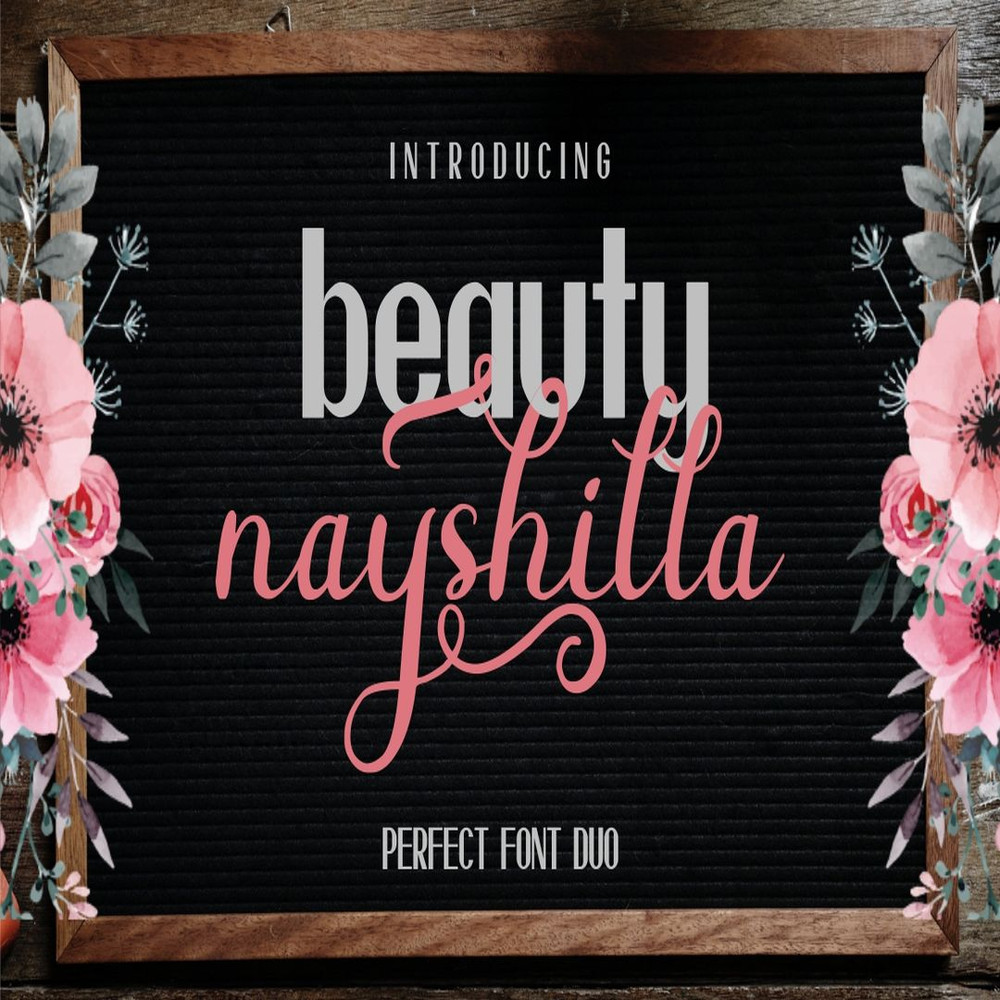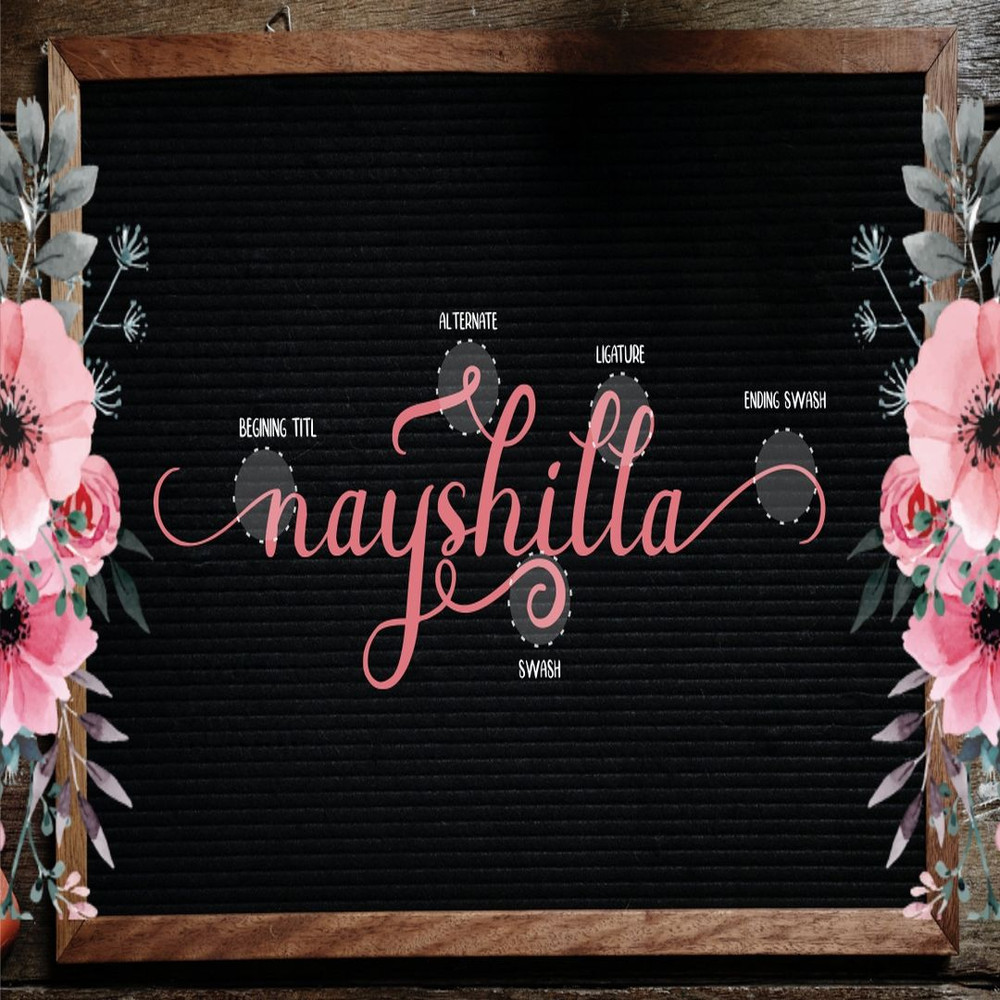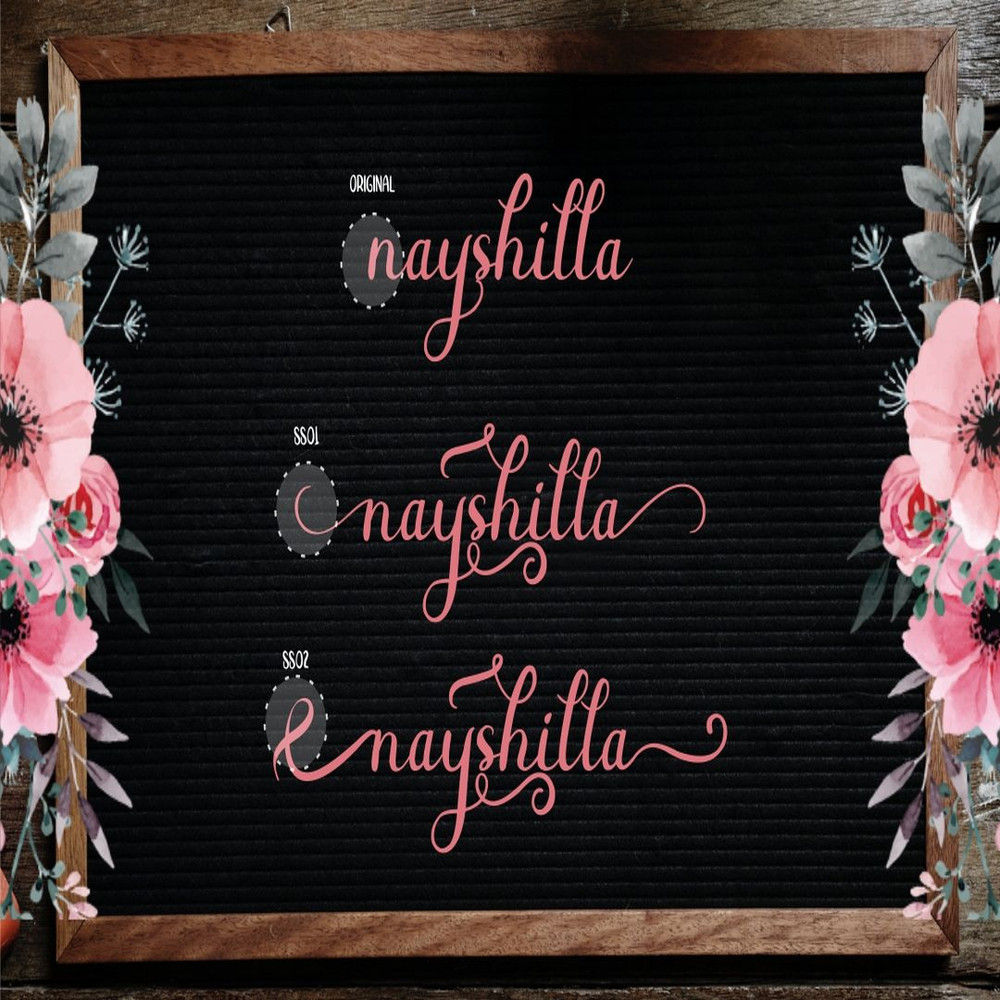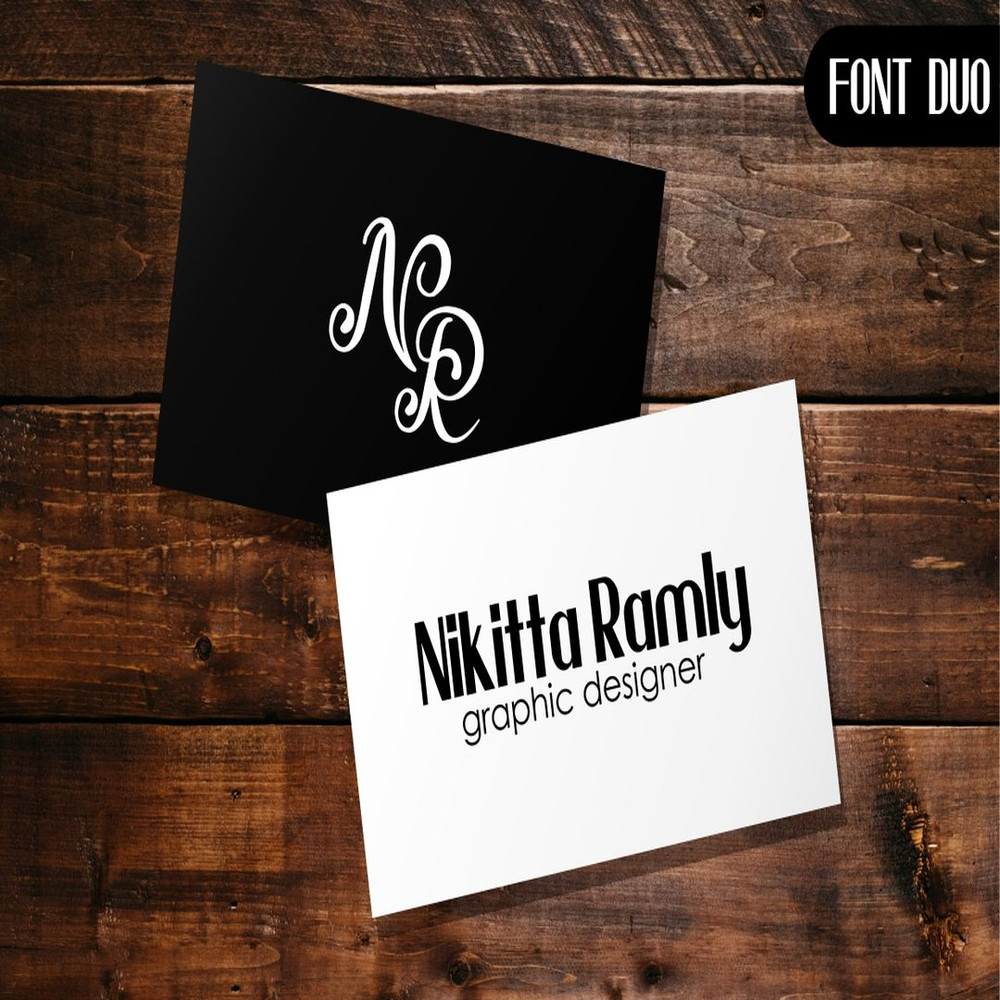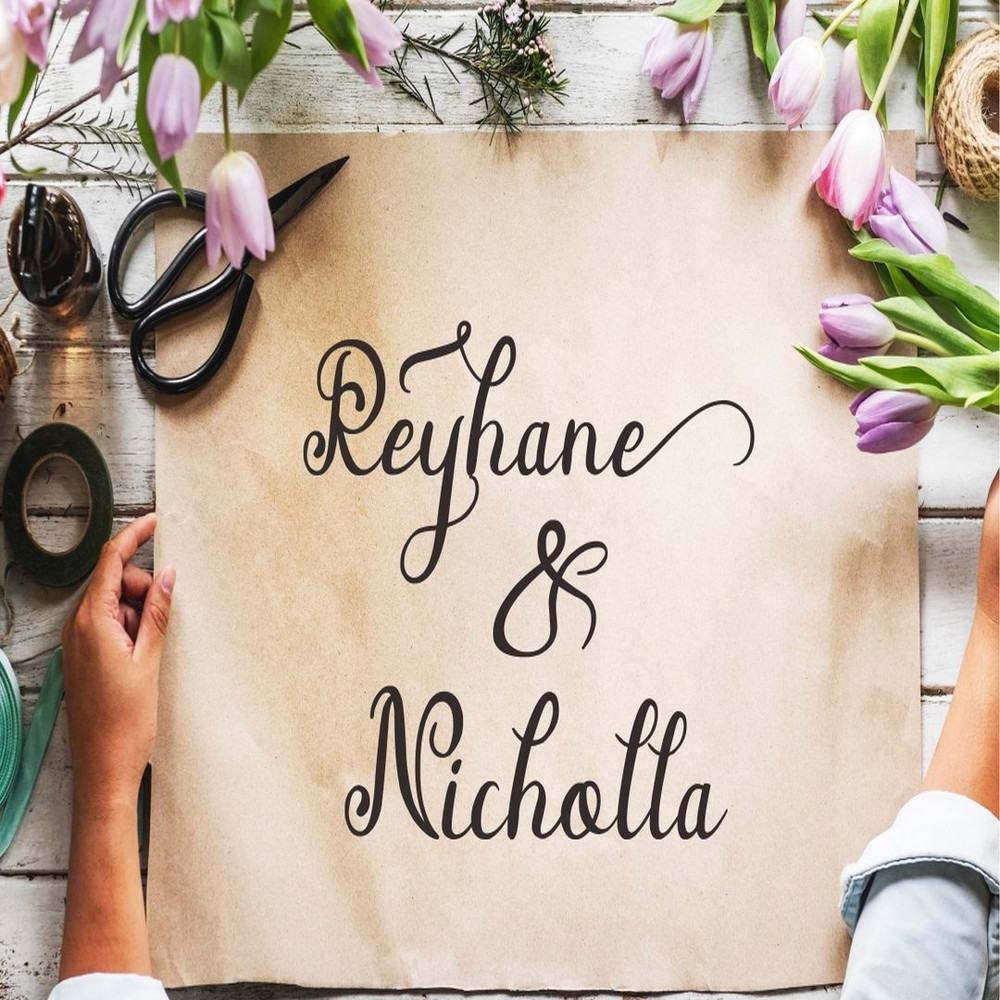
The beauty nayshilla is modern script and sans, very suitable for any project or business, it will give stunning and ellegant look for your design, and this font duo can be combined to give your artword more perfect.